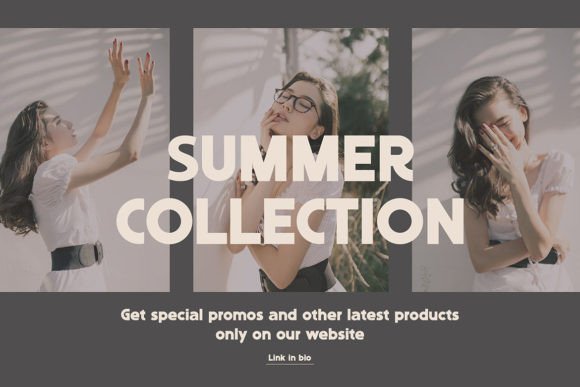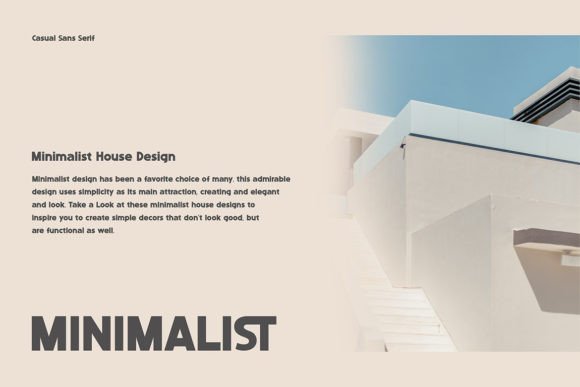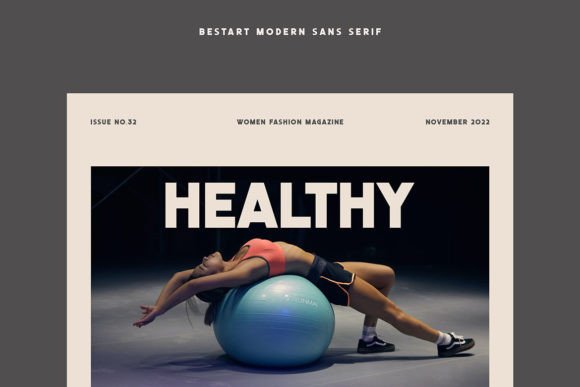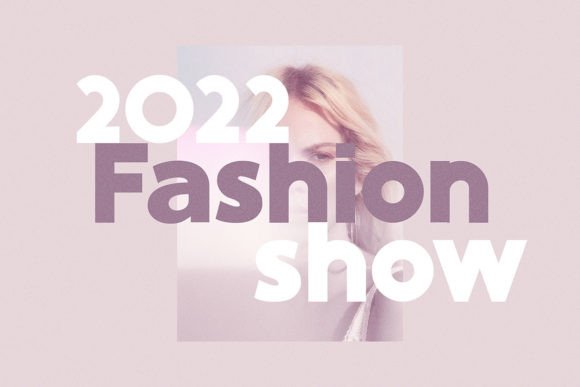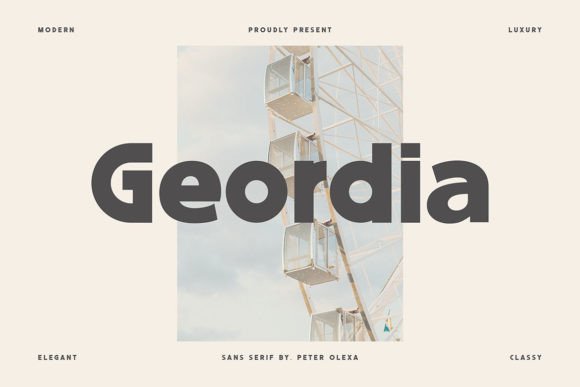
Discover the Elegance of Geordia Font: A Timeless Choice for Modern Design
In the world of typography, few fonts manage to capture the essence of modern elegance as effortlessly as Geordia. This sans-serif font has been making waves in the design community with its clean, minimal lines and timeless appeal that exudes sophistication. Whether you’re a designer looking for the perfect font for your next branding project, a crafter seeking a stylish addition to your handmade goods, or simply a typography enthusiast, Geordia is sure to impress.
The Epitome of Modern Elegance
Geordia’s design is characterized by its simplicity and precision. Each character is crafted with care, ensuring that the font is not only aesthetically pleasing but also highly legible. This makes it an excellent choice for a wide range of applications, from editorial design and packaging to branding and advertising. The clean lines and minimalistic approach of Geordia ensure that it pairs well with a variety of design elements, allowing it to seamlessly integrate into any project.
Serenity – Where Simplicity Meets Style
One of the standout features of Geordia is its ability to convey a sense of serenity. In today’s fast-paced world, design that communicates calmness and elegance is more sought after than ever. Geordia achieves this through its uncluttered and straightforward design, making it the perfect font for designers who want to create a sense of tranquility and sophistication in their work. Whether you’re designing a luxury brand’s logo, a fashion magazine’s editorial spread, or a craft project’s label, Geordia brings a touch of class and refinement.
PUA Encoding for Easy Access to Glyphs and Swashes
Geordia is not just a beautiful font; it’s also highly functional. It comes with PUA (Private Use Area) encoding, which means that all the glyphs and swashes are easily accessible. This feature is particularly beneficial for designers and crafters who want to add a personal touch to their work. With PUA encoding, you can effortlessly access and use the additional design elements that Geordia has to offer, allowing for greater creativity and flexibility in your projects.
Geordia’s versatility makes it an ideal choice for both designers and crafters. For designers, it offers a professional and modern look that’s perfect for client projects. Its clean lines and elegant appearance make it suitable for a wide range of industries, from luxury brands to lifestyle and wellness. For crafters, Geordia provides a stylish and sophisticated font that’s perfect for product labels, packaging, and any other material that requires a personal touch. The ease of use provided by PUA encoding ensures that you can focus on the creative aspect of your project without any technical hassles.
Why Choose Geordia?
• Timeless Appeal: Geordia’s design is timeless, ensuring that your projects will look elegant and sophisticated for years to come.
• Versatility: Its clean and minimalistic design makes it suitable for a wide range of applications, from branding and editorial design to packaging and crafting.
• Ease of Use: With PUA encoding, accessing glyphs and swashes is easy, allowing for greater creativity and flexibility.
• Legibility: Geordia’s characters are designed for maximum legibility, making it perfect for both digital and print projects.
Geordia font represents the perfect blend of modern elegance and timeless sophistication. Its clean lines, minimalistic design, and PUA encoding make it an excellent choice for designers and crafters alike. Whether you’re looking to elevate your brand’s image, create stunning editorial content, or add a touch of elegance to your handmade projects, Geordia is the epitome of style and serenity. Discover the elegance of Geordia and take your designs to the next level.